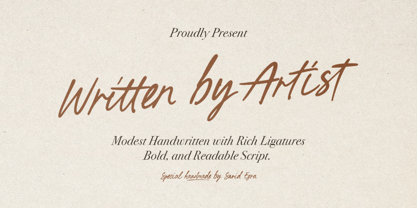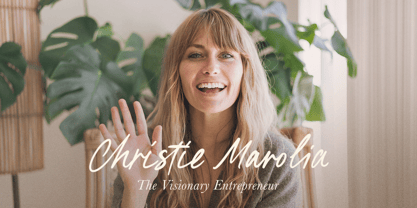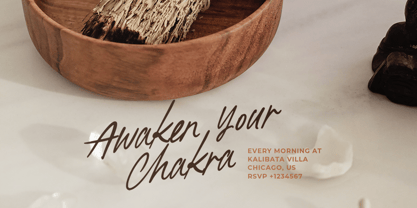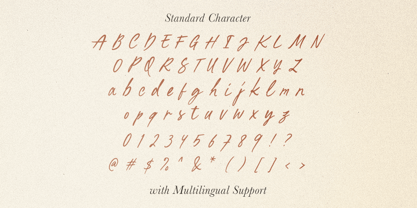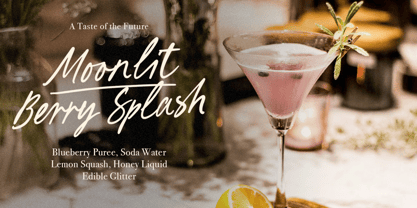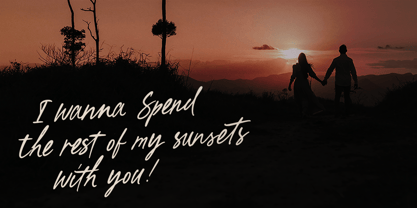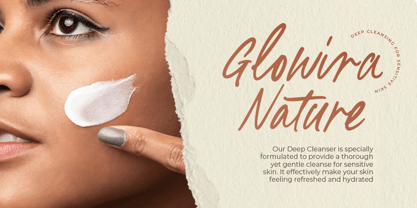
Written by Artist
by Sarid Ezra
The Written by Artist Font Family was designed by Sarid Ezra and published by Sarid Ezra. Written by Artist contains 1 styles. More about this family
Written by Artist is a modest and minimalist handwritten with ligatures. With bold and easy to read, you can use this font for any purposes such as quotes, logotype, branding, or wedding invitations. With bunch of ligatures, you can make your project more naturally handwritten. This font also support multi language.